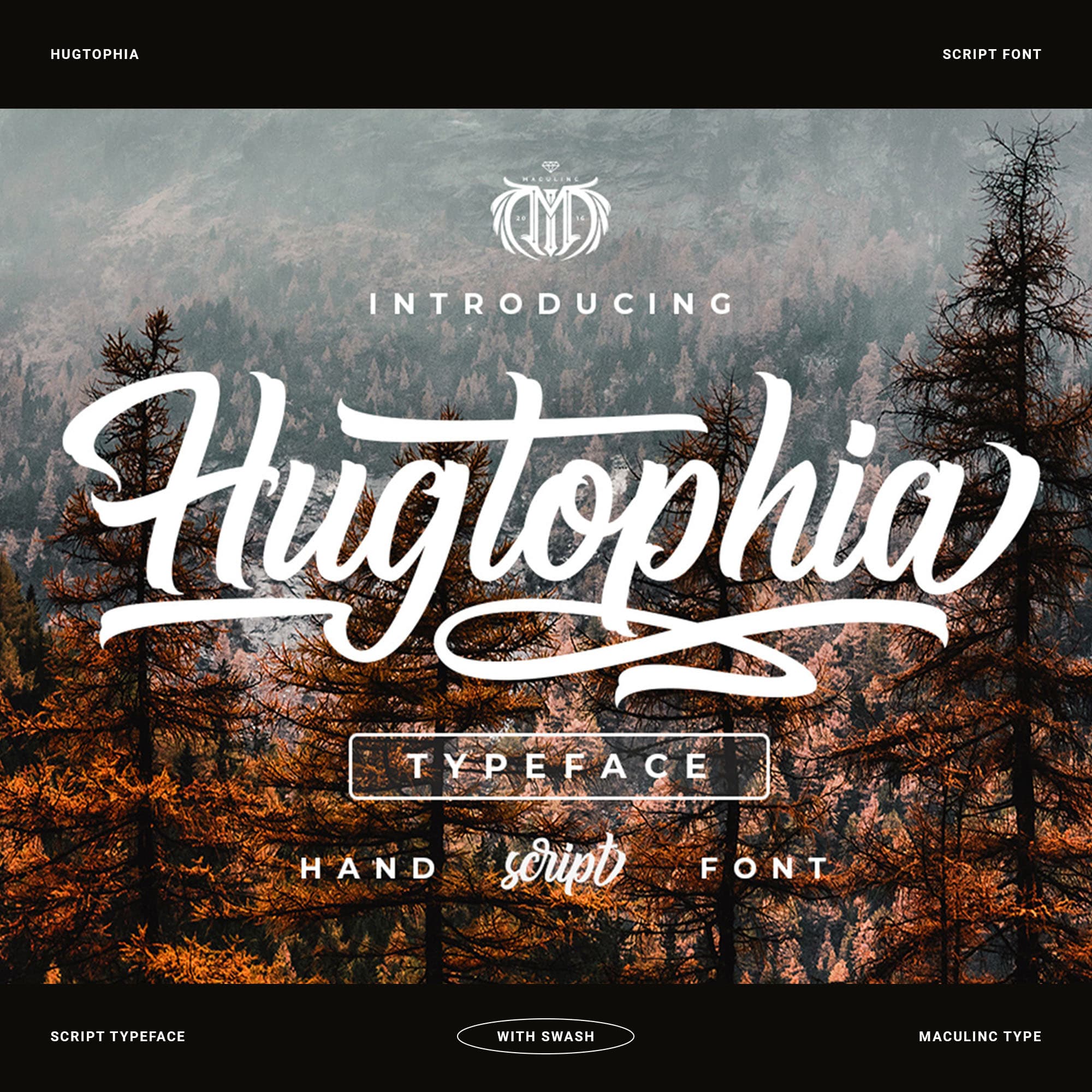
<p>This font creation is inspired by a fairy tale from a modern fantasy country but does not eliminate their culture, a country full of love and peace removes people's minds to commit evil.</p><hr><p><strong>Hugtophia</strong> is a simple typography and easy to read so comfortable to wear. You can use them as logos, badges, packaging, headlines, posters, t-shirts / clothing, greeting cards, business cards, and wedding invitations and more. The flowing character is ideal for creating interesting messages to your taste.</p><hr><p>mix and match a group of alternate characters to fit your project. It will be more interesting if you add swash.</p><hr><p>Alternate characters in this font are divided into several OpenType features such as Stylistic Alternate, Ligature and Ligature Alternates.</p><hr><p><strong>OTF and TTF files</strong></p><p><strong>Multilingual Support</strong></p><hr><p>If you are looking for a custom font or web license, and for support, feel free to contact us at <a target="_blank" rel="noopener noreferrer nofollow" class="text-primary underline underline-offset-4" href="mailto:maculinc@gmail.com">maculinc@gmail.com</a></p><hr><p>Thank you for visiting us and don't forget to follow us :</p><p><strong>Behance</strong> ( <a target="_blank" rel="noopener noreferrer nofollow" class="text-primary underline underline-offset-4" href="https://www.behance.net/maculinc">https://www.behance.net/maculinc</a> )</p><p><strong>Dribbble</strong> ( <a target="_blank" rel="noopener noreferrer nofollow" class="text-primary underline underline-offset-4" href="https://dribbble.com/Maculinc">https://dribbble.com/Maculinc</a> )</p><p><strong>Instagram</strong> ( <a target="_blank" rel="noopener noreferrer nofollow" class="text-primary underline underline-offset-4" href="https://www.instagram.com/maculinc/">https://www.instagram.com/maculinc/</a> )</p>